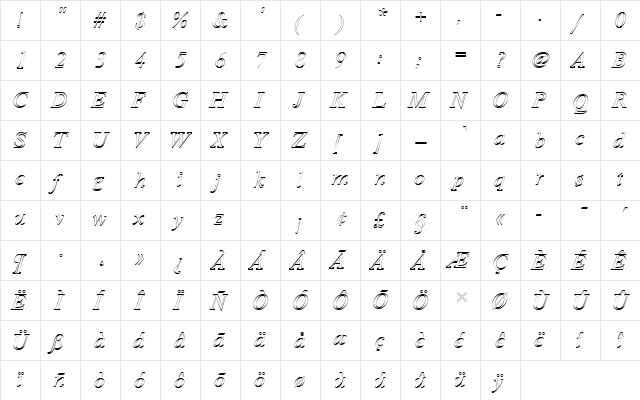
NimbusRomDRegItaOu1 Regular
Design Context for NimbusRomDRegItaOu1 Typeface
NimbusRomDRegItaOu1 offers clean, dependable letterforms without strong stylistic allegiance, making it a practical choice for designers who need flexibility.